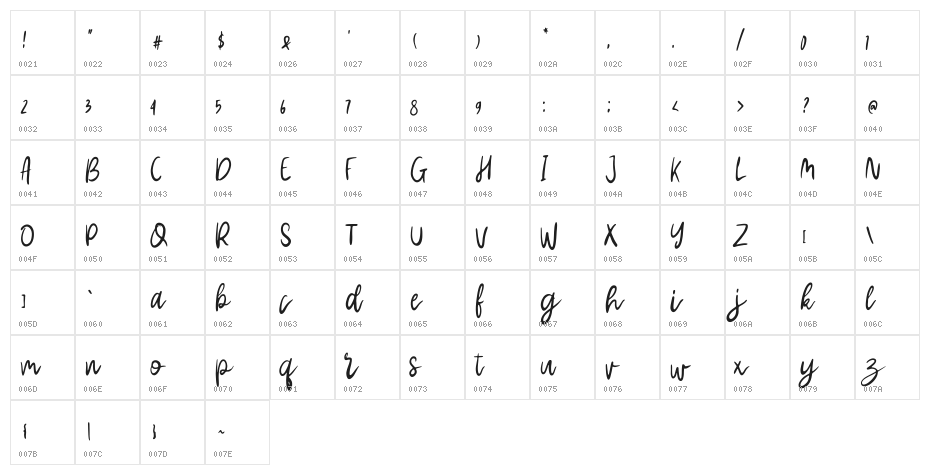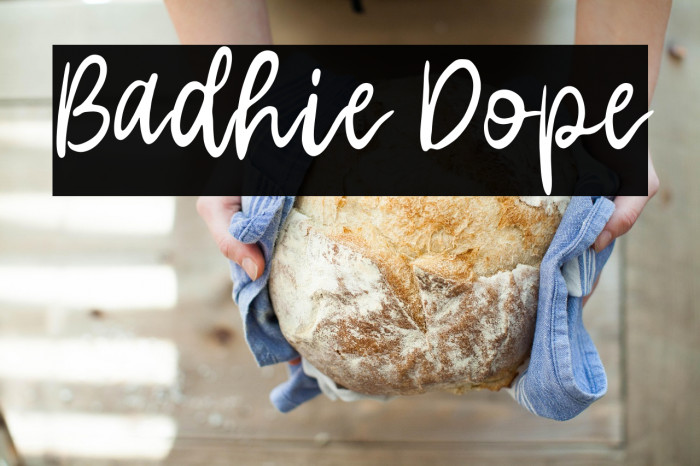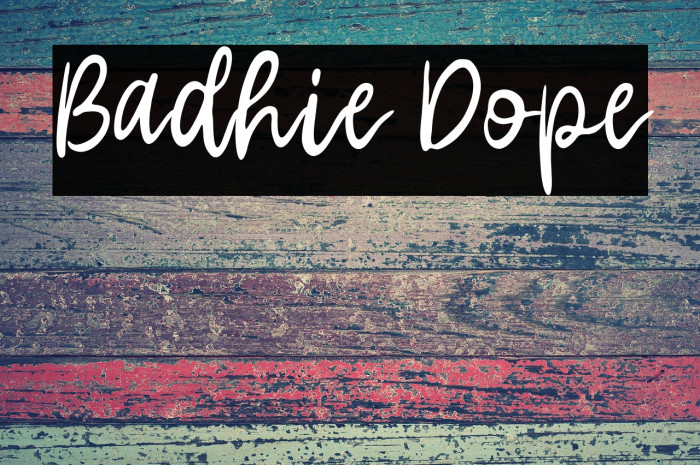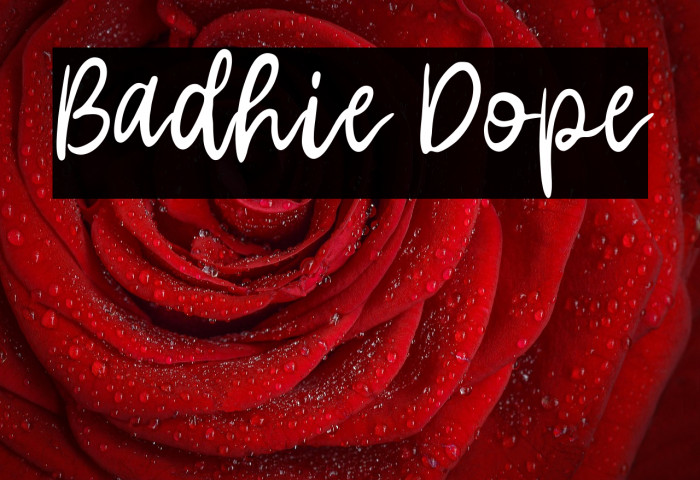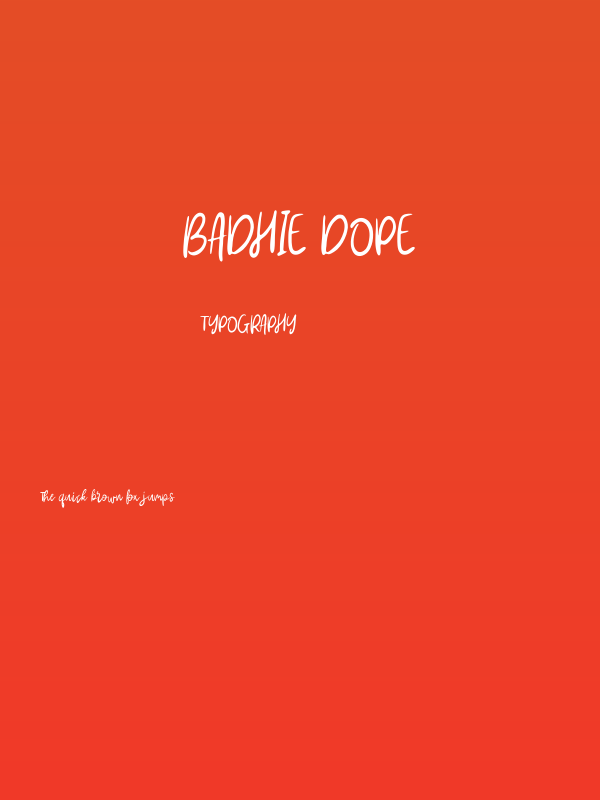
Badhie Dope Font
Badhie Dope Description
This font features a lively and expressive handwritten style, characterized by its fluid and dynamic strokes. The uppercase letters are bold and slightly slanted, giving a sense of movement and energy. The lowercase letters maintain a consistent flow, with some letters featuring loops and swirls that add to the playful nature of the font. The numbers are clear and legible, matching the overall style with a slight slant. Special characters are creatively designed, maintaining the handwritten aesthetic. This font is perfect for projects that require a personal touch, such as invitations, greeting cards, or branding materials that aim to convey a sense of creativity and individuality.